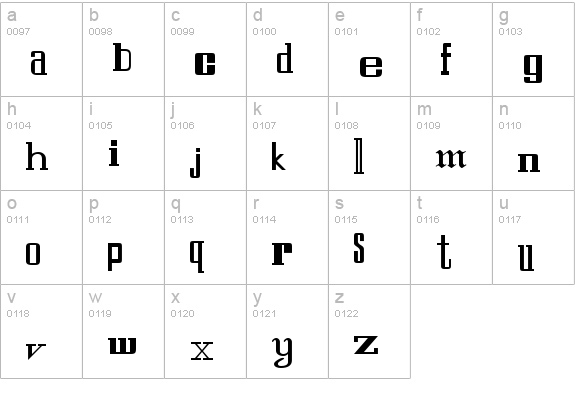
Fernando font is a stunning and versatile typeface that exudes elegance and sophistication. Its sleek lines and modern design make it perfect for a wide range of design projects, from branding to editorial design. The font features a unique blend of classic and contemporary elements, giving it a timeless appeal that will make your work stand out. The best part? Fernando font is completely free to download at FontsMarket.com. With just a few clicks, you can add this exquisite font to your collection and start using it in your projects right away. Don't miss out on this amazing opportunity to enhance your designs with the beauty and style of Fernando font. Download it now and see the difference it can make!